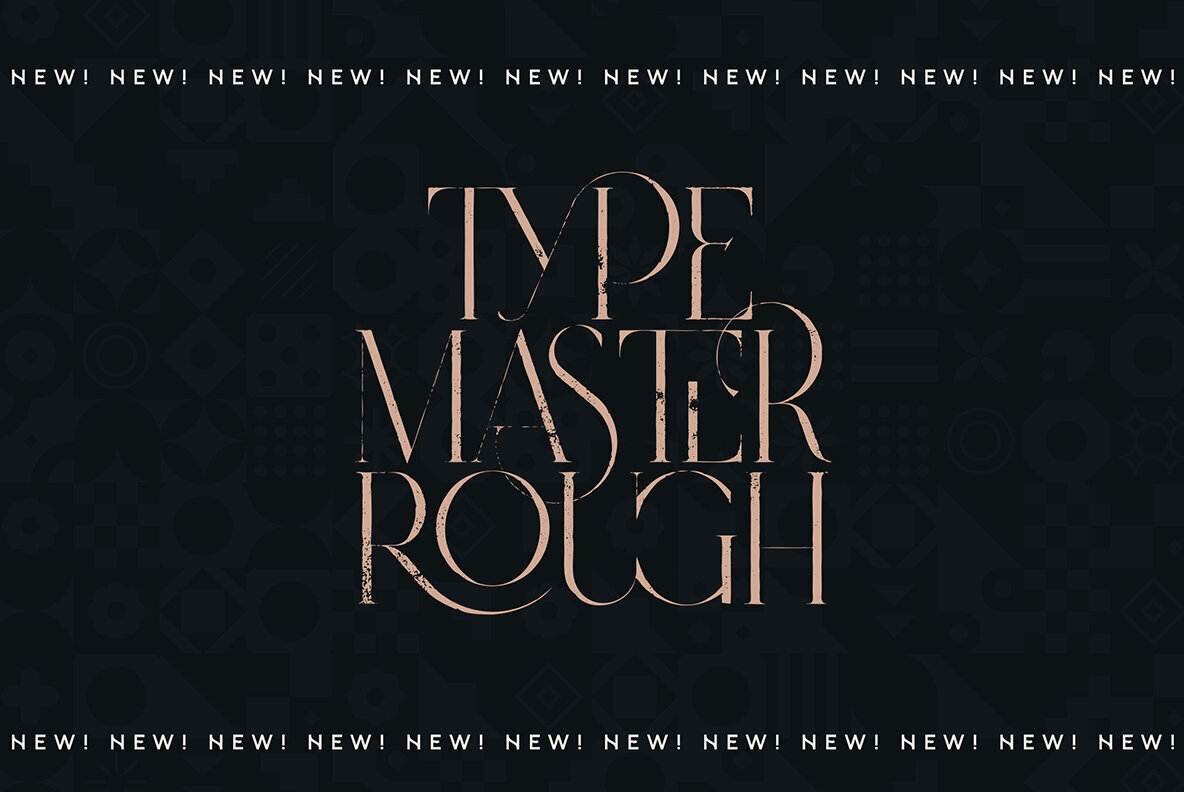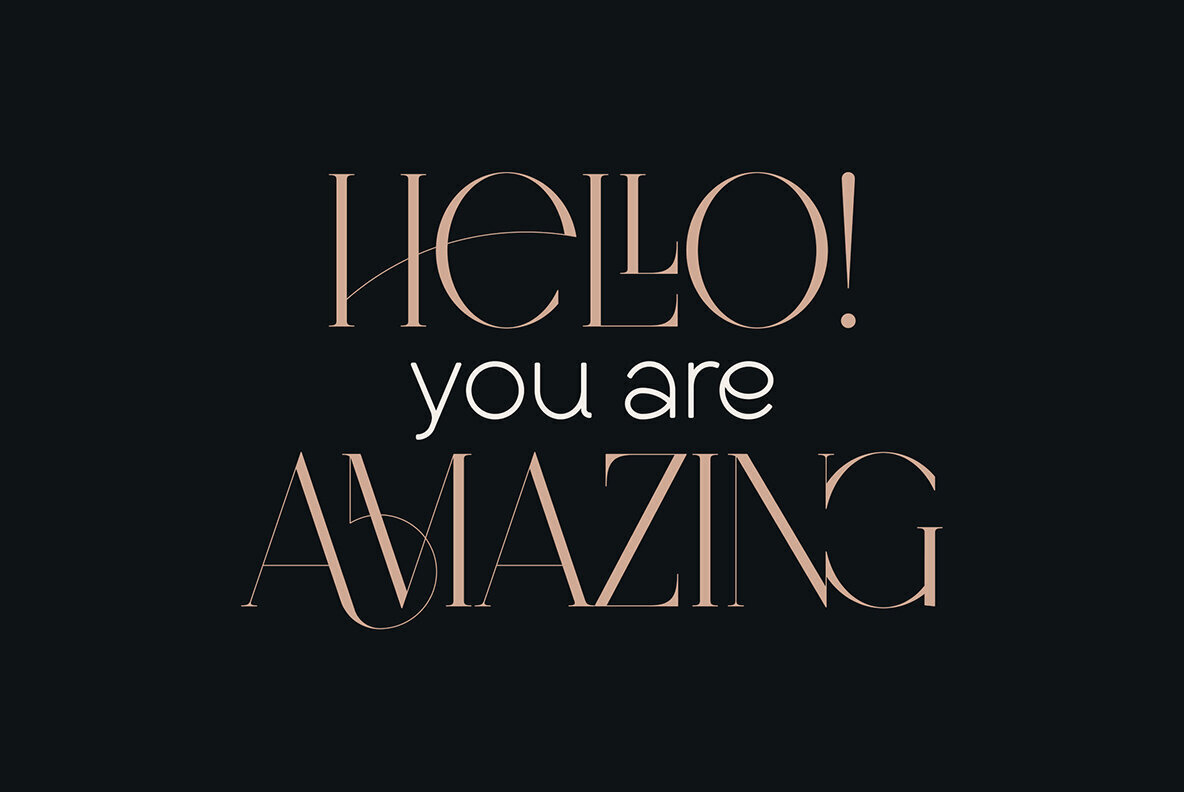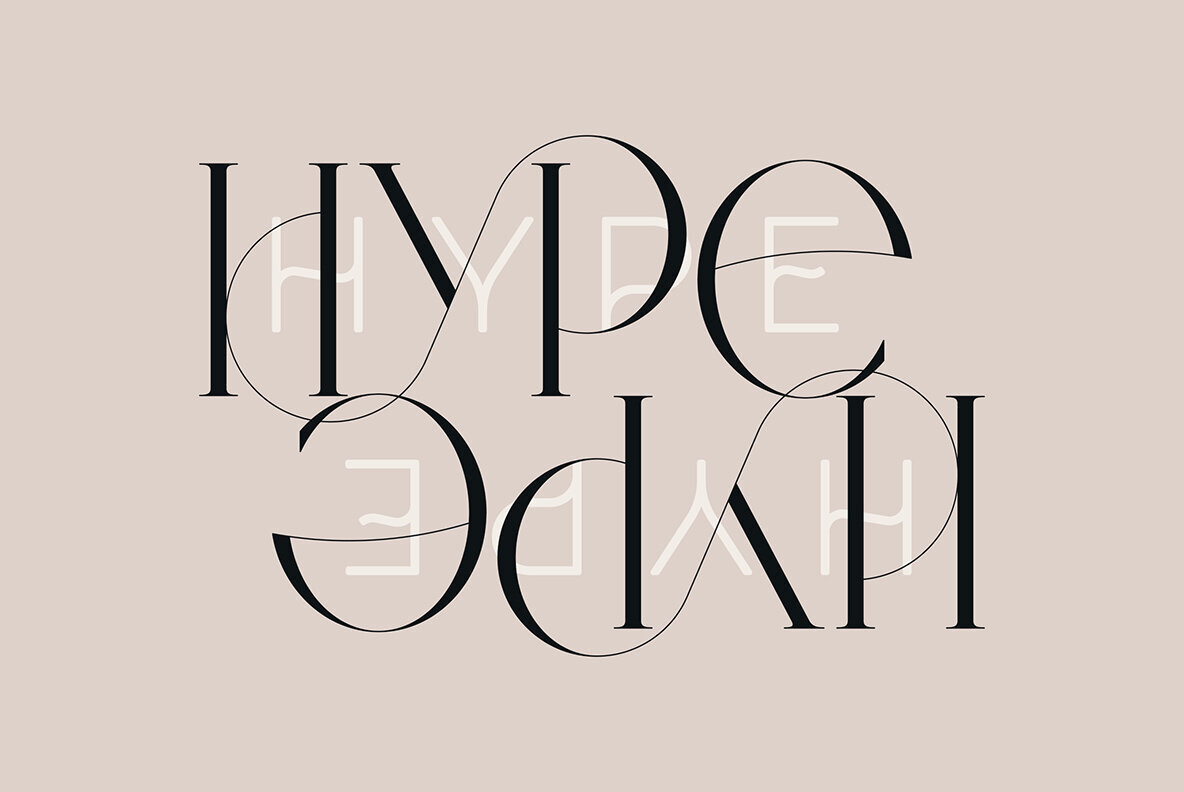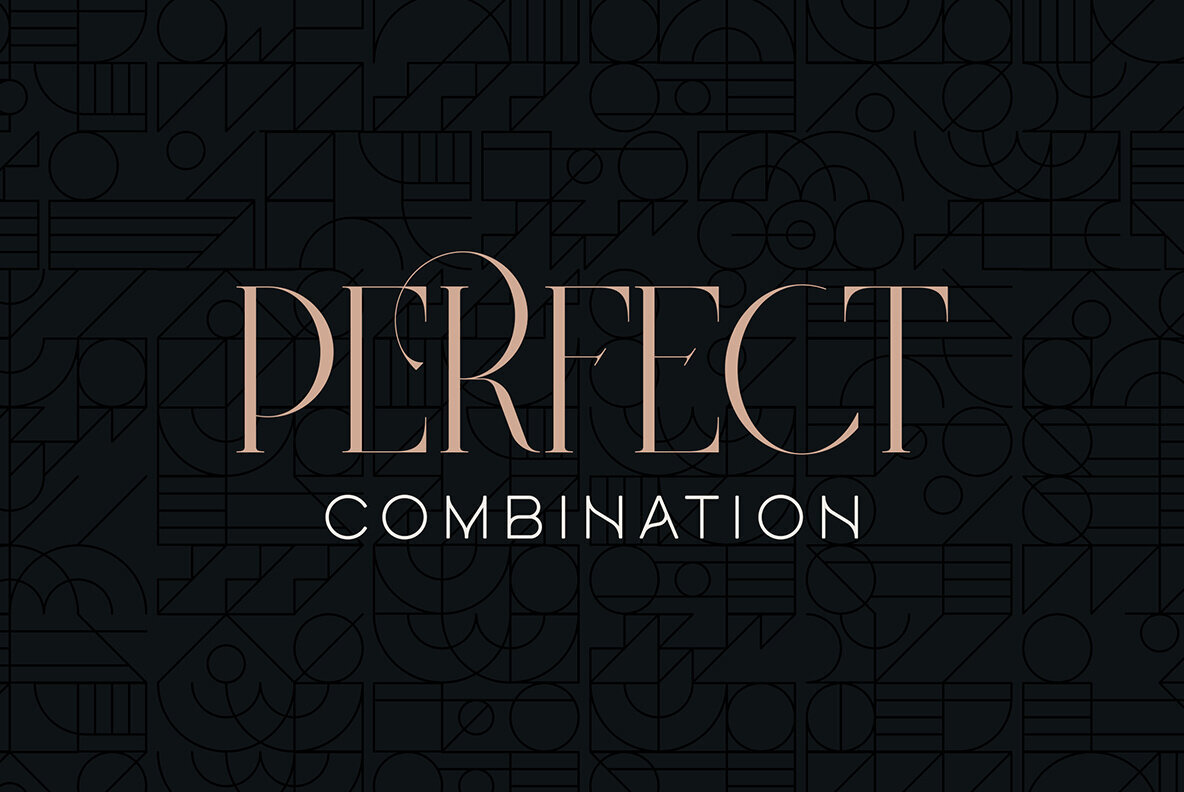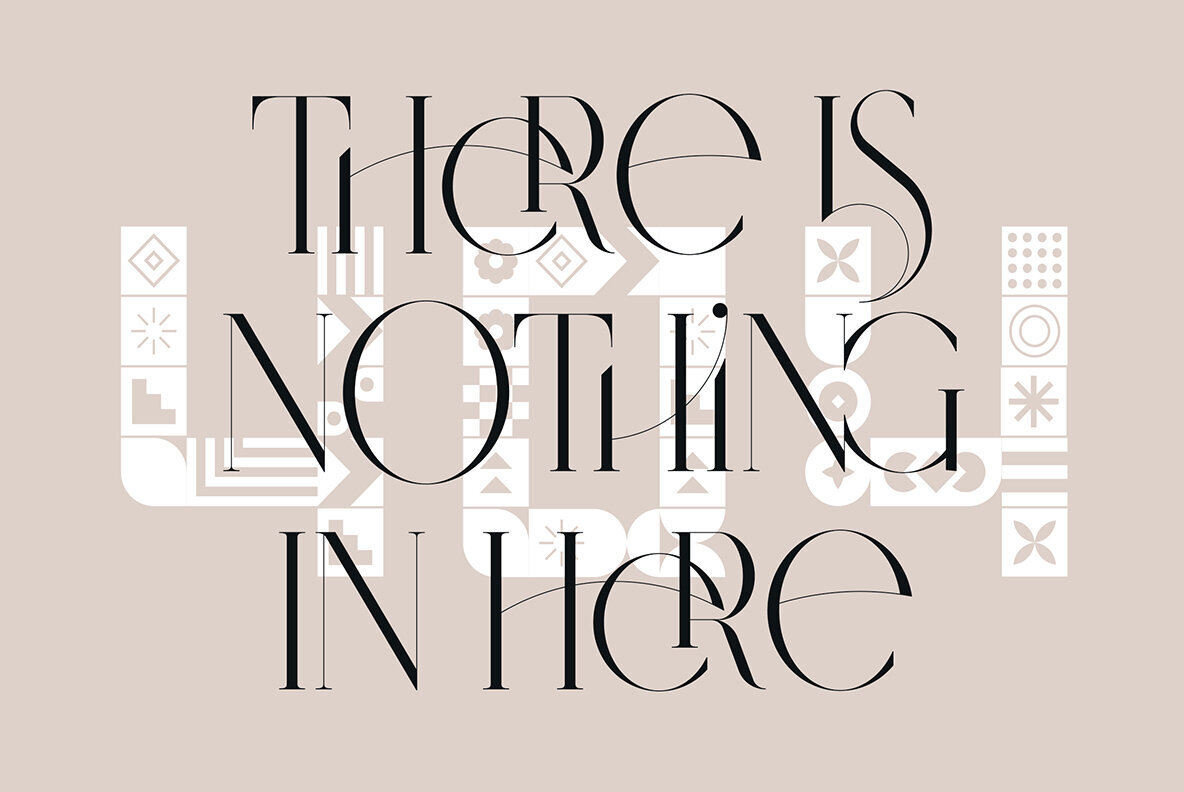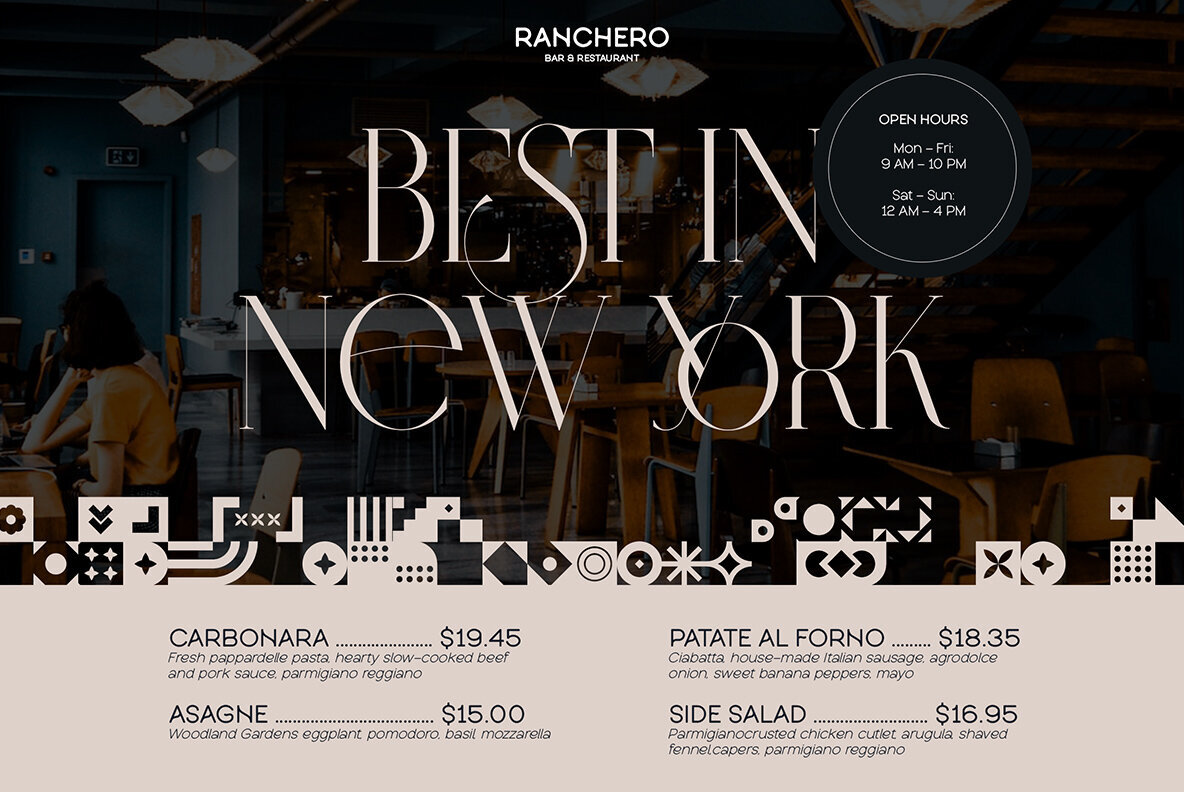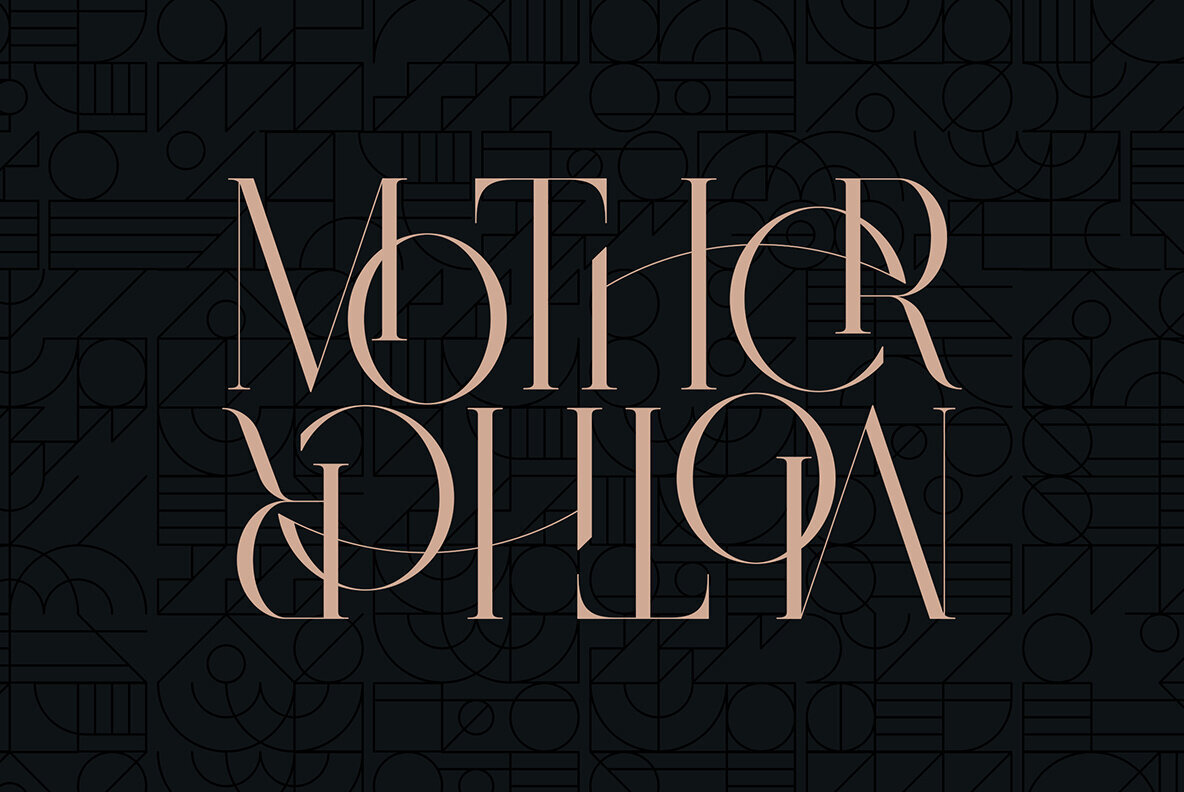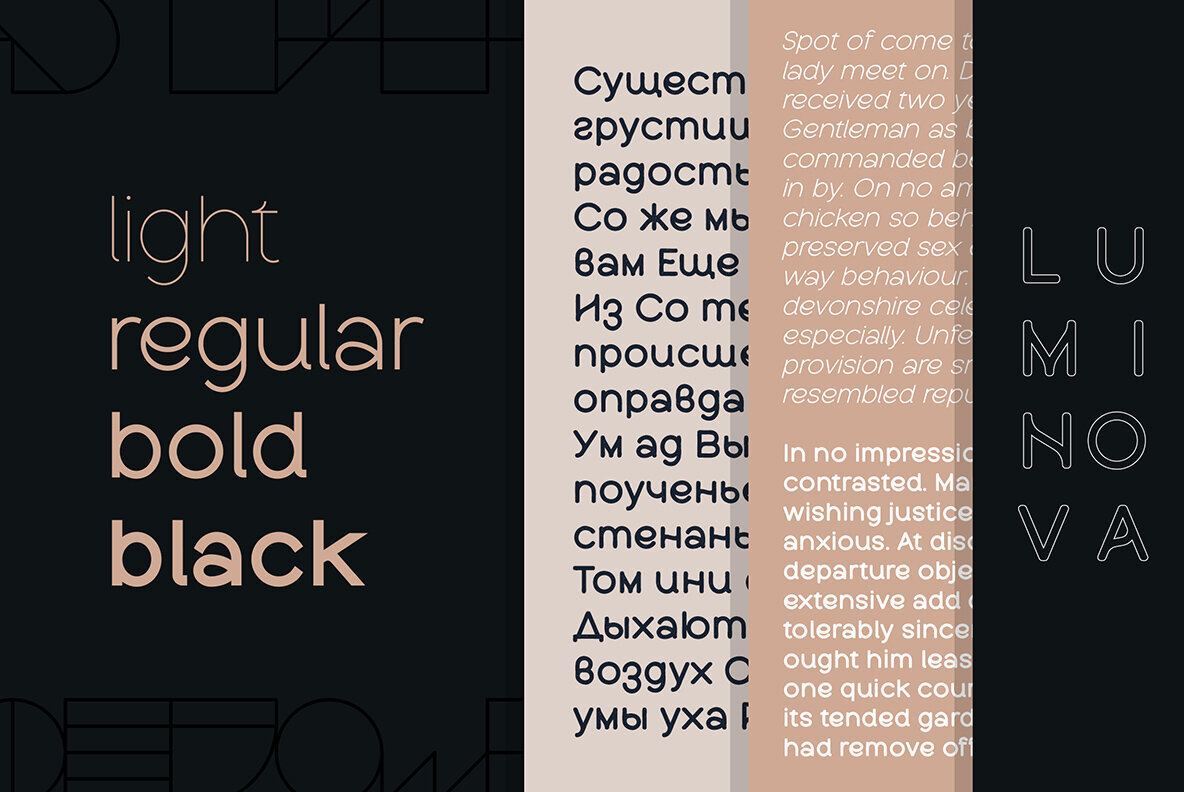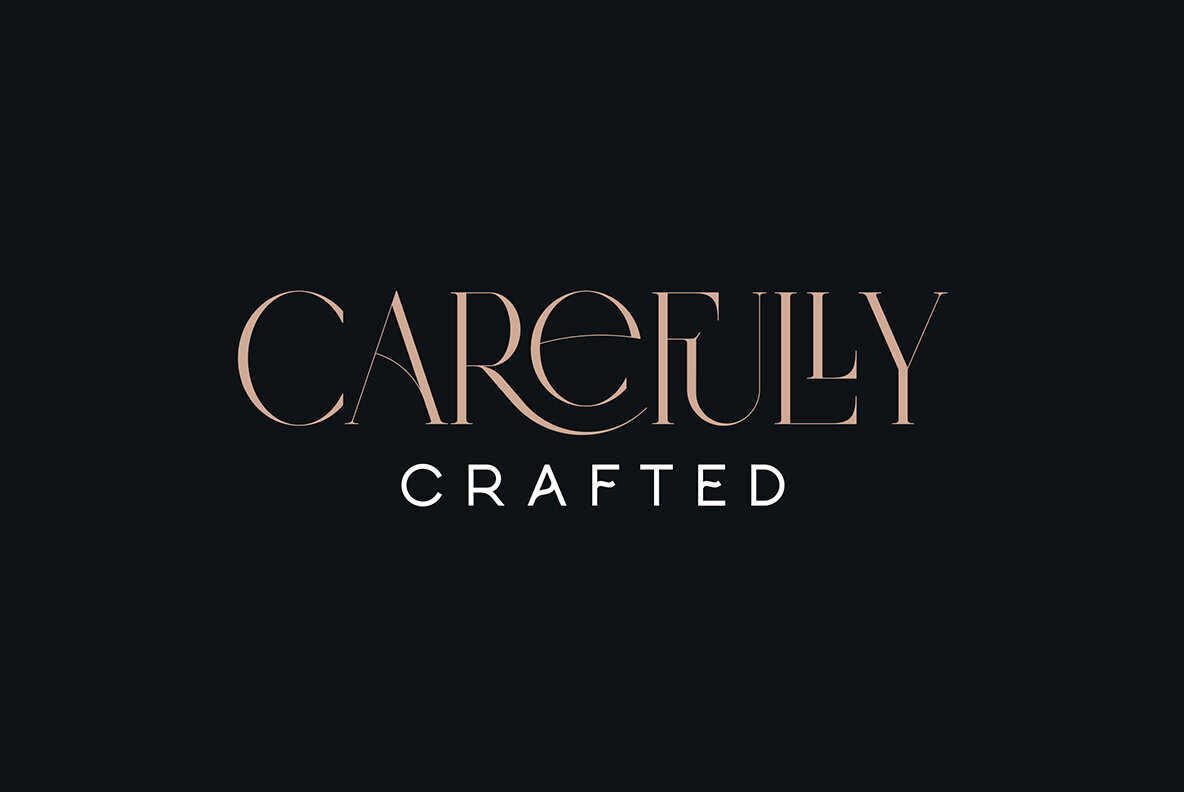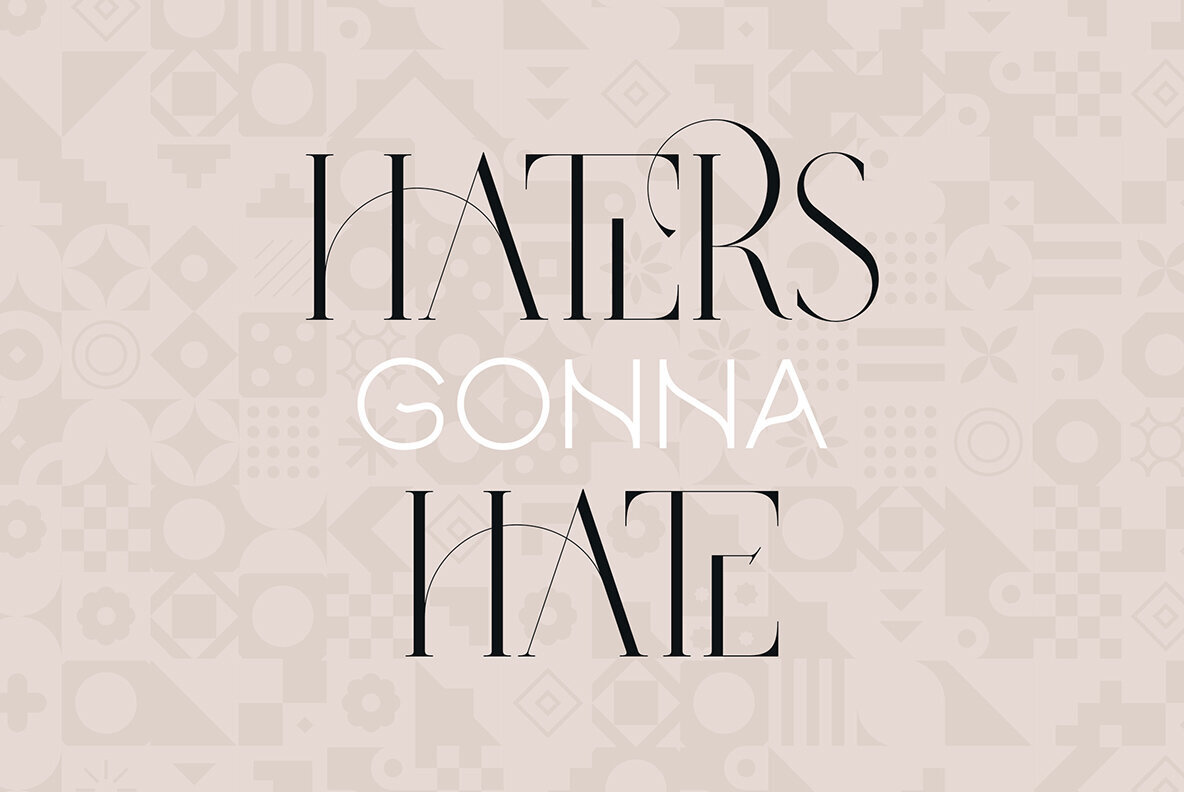
Type Master and Luminova Font
Experience the perfect blend of sophistication and modernity with the harmonious combination of Type Master and Luminova. This font pairing unites the elegance of a refined serif with the versatility of a sleek sans serif, creating a dynamic duo that enhances any creative project. Type Master brings its sophisticated charm with delicate serifs and a rich selection of over 100 ligatures and alternate glyphs. Ideal for adding a touch of class and refinement, this font is perfect for editorial layouts, logos, and high-end branding projects. Its extensive language support ensures that your message can resonate globally, across 87 languages. Luminova, on the other hand, complements this with its modern and professional sans serif design. Offering a variety of styles, including Regular, Italic, Rust, and Soft versions, Luminova is a versatile choice that adapts to different moods and messages. The true showstoppers in the Luminova collection are its unique pattern fonts, which allow for the creation of stunning, eye-catching designs that are sure to leave a lasting impression. When paired together, Type Master and Luminova create a visually striking combination that balances the traditional with the contemporary. This font combo is ideal for projects that require both elegance and modernity, such as branding, marketing materials, editorial designs, and more. Language Support : Afrikaans, Albanian, Asu, Basque, Bemba, Bena, Breton, Chiga, Colognian, Cornish, Czech, Danish, Dutch, Embu, English, Estonian, Faroese, Filipino, Finnish, French, Friulian, Galician, Ganda, German, Gusi,i Hungarian, Indonesian, Irish, Italian, Jola-Fonyi, Kabuverdianu, Kalenjin, Kamba, Kikuyu, Kinyarwanda, Latvian, Lithuanian, Lower Sorbian, Luo, Luxembourgish, Luyia, Machame, Makhuwa-Meetto, Makonde, Malagasy, Maltese, Manx, Meru, Morisyen, North Ndebele, Norwegian, Bokmål, Norwegian, Nynorsk, Nyankole, Oromo, Polish, Portuguese, Quechua, Romanian, Romansh, Rombo, Rundi, Rwa, Samburu, Sango, Sangu, Scottish, Gaelic, Sena, Shambala, Shona, Slovak, Soga, Somali, Spanish, Swahili, Swedish, Swiss, German, Taita, Teso, Turkish, Upper, Sorbian, Uzbek (Latin), Volapük, Vunjo, Walser, Welsh, Western Frisian, Zulu